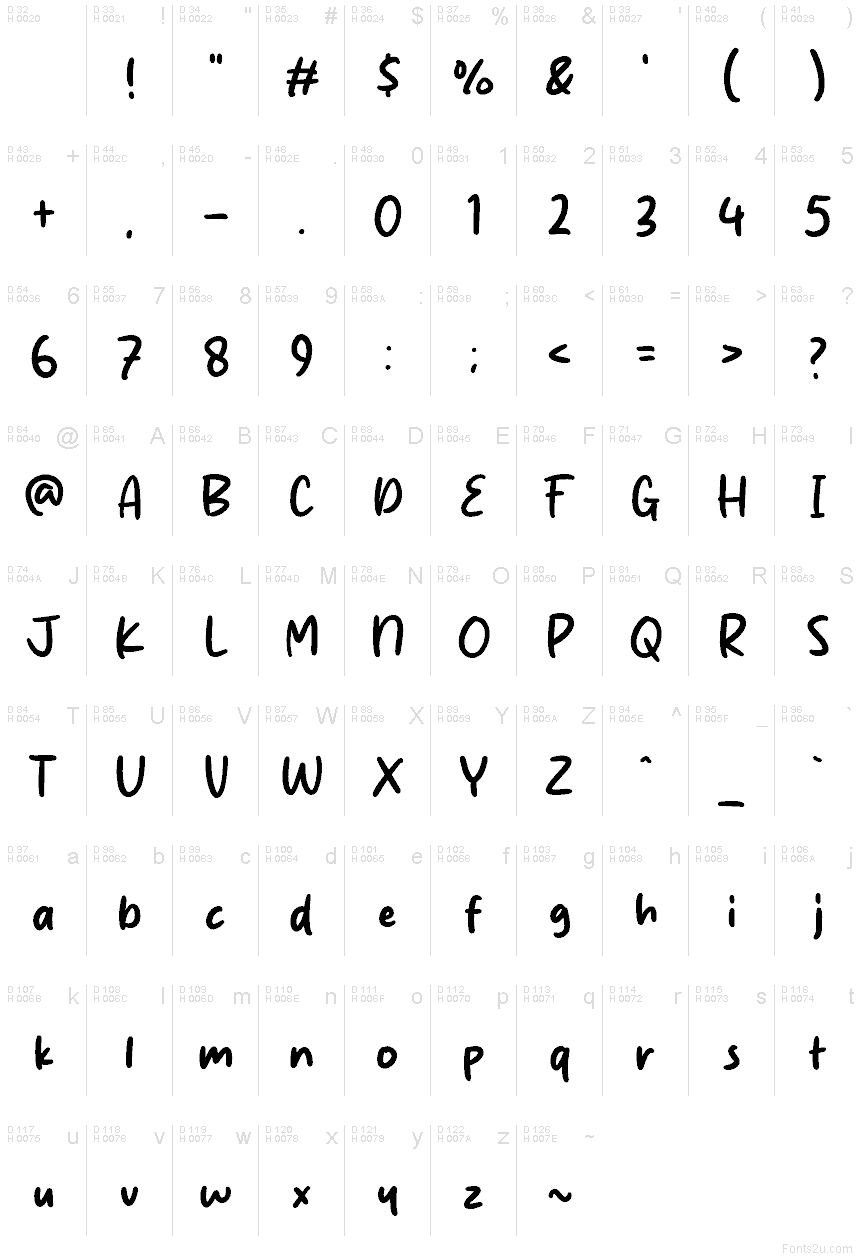
Mistica Blue
Mistica Blue font by MJType is a free handwritten font with modern and friendly features. A unique signature is exhibited in this wonderful design, a feature that all designers would want to benefit from. Analyze the swashes in the letters as you try to empirically understand how they work alongside each other.